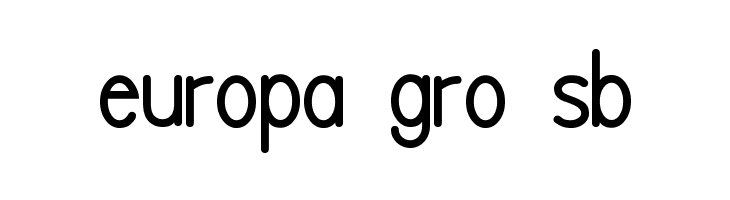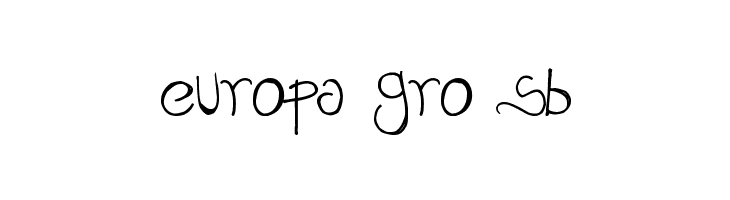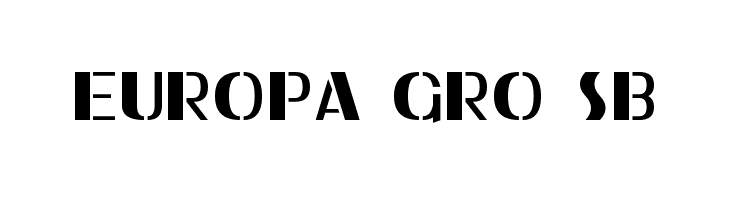
A bold, distressed typewriter-style font with a vintage, hand-crafted feel.
A bold, handwritten font with a playful and dynamic style.
A whimsical, hand-drawn font with flowing, cursive-like letters.
A bold, distressed font with a vintage, industrial style.
A distressed, grunge-style font with a bold, textured appearance.
A bold, distressed font with a grunge aesthetic and textured appearance.
A bold, distressed font with a vintage, grunge aesthetic.
A bold, angular font with a geometric and impactful style.
A bold, textured font with a hand-drawn, artistic style.
A playful, hand-drawn font with thick, uneven strokes and a whimsical style.
A bold, geometric font with a modern and industrial style.
A bold, textured font with a vintage, distressed appearance.
A playful, bold, and three-dimensional hand-drawn font with a whimsical style.
A bold, dynamic font with a slanted, layered effect and modern appeal.
A bold, dynamic font with a three-dimensional effect and layered strokes.
A bold, geometric font with a futuristic and industrial design.
A hand-drawn, playful font with tall, narrow characters and a casual aesthetic.
A bold, modern sans-serif font with a clean and impactful design.
A modern, extra light sans-serif font with tall, narrow characters.
A modern, light sans-serif font with tall, narrow characters and consistent stroke width.
A modern, condensed sans-serif font with a sleek and uniform appearance.
An ornate, medieval-style font with bold, decorative strokes.
A bold, angular font with a modern, rebellious style.